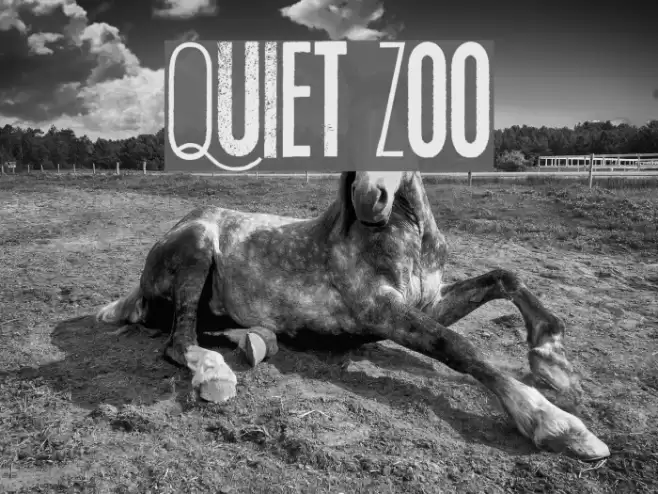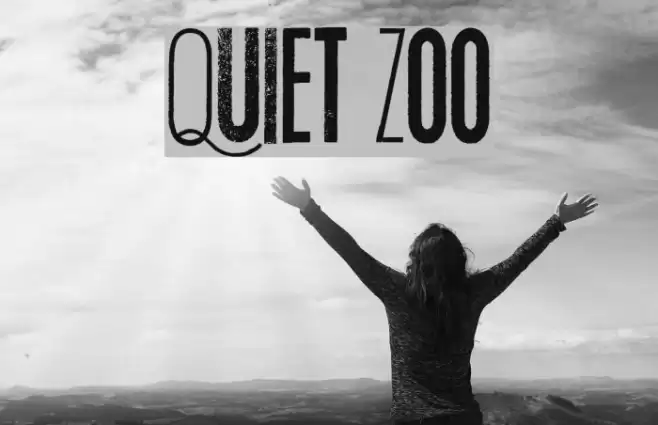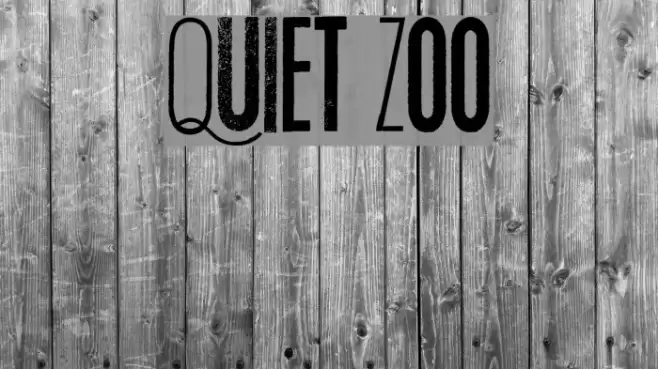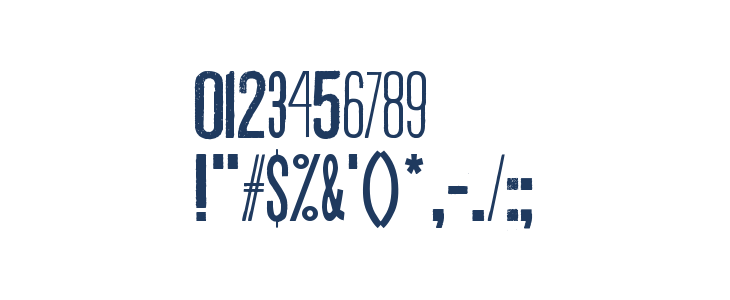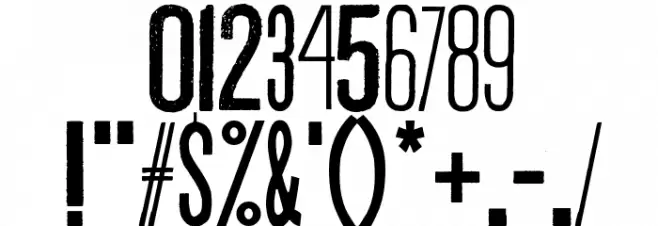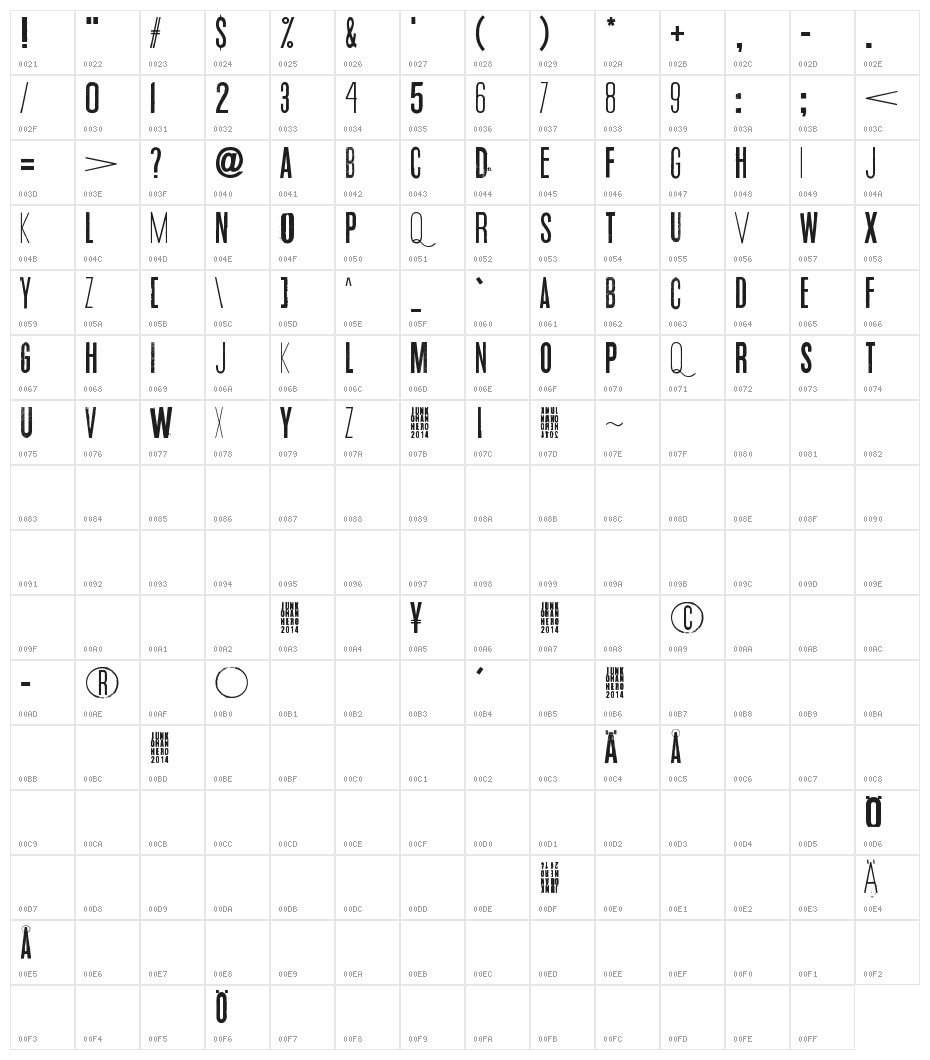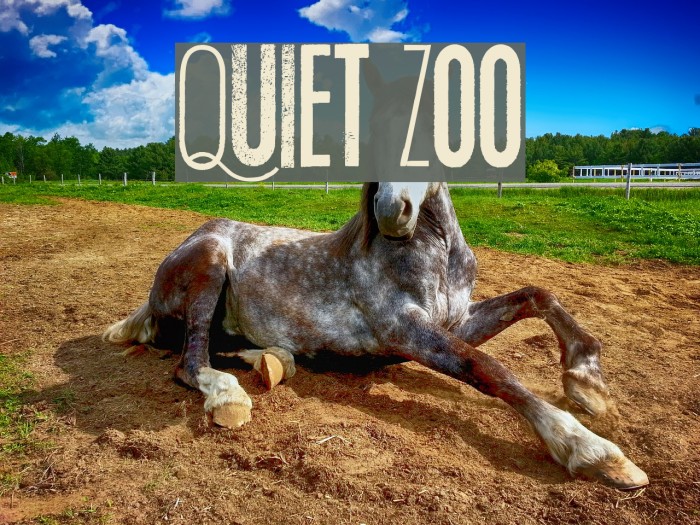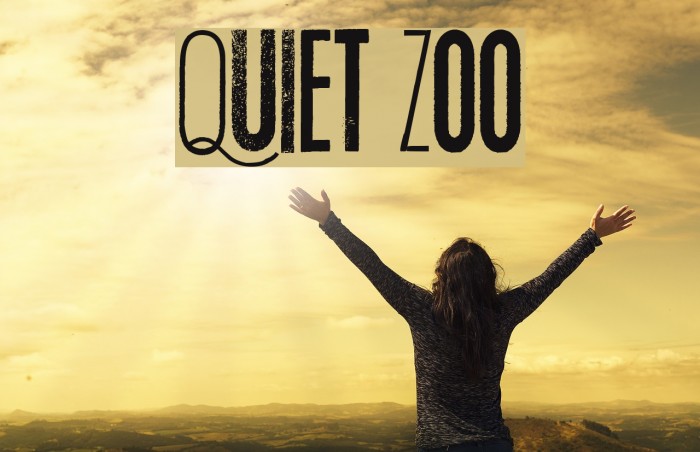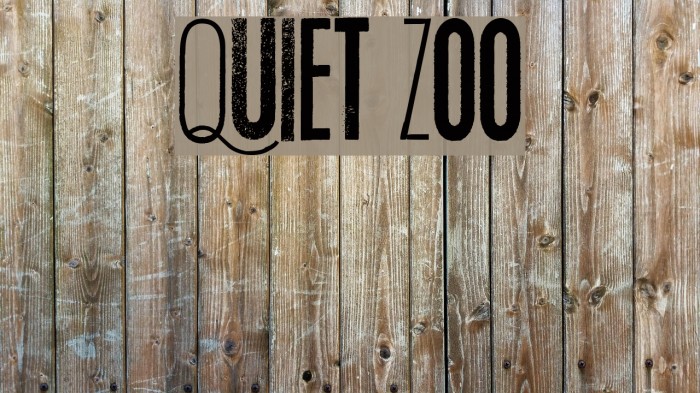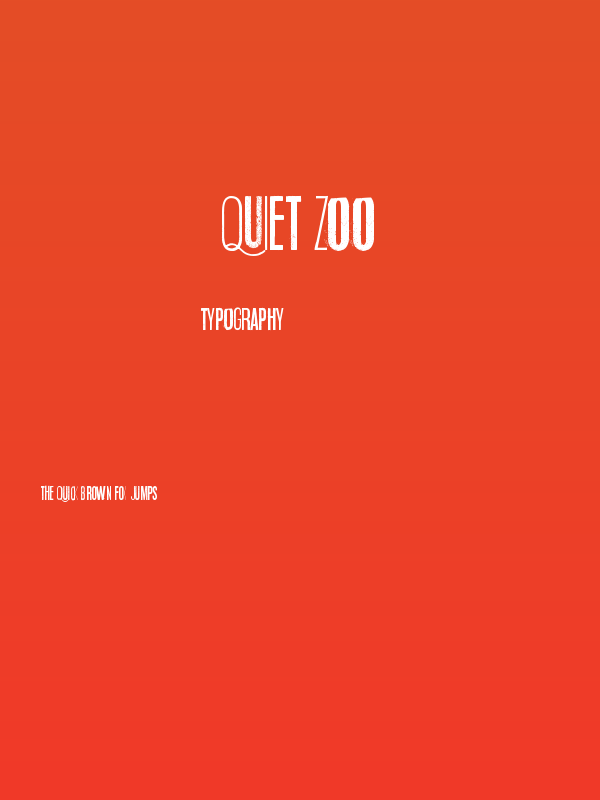
Quiet Zoo Font
Quiet Zoo Description
This font features a distressed, textured appearance, giving it a rugged and vintage feel. The uppercase letters are bold and tall, with varying levels of distress that add character and uniqueness to each letter. The lowercase letters maintain the same distressed style, providing a cohesive look across the alphabet. The numerals are similarly styled, ensuring consistency throughout. Special characters are included, each with its own distinct weathered look. This font is ideal for projects that require a bold, eye-catching typeface with a touch of nostalgia and grit.
A distressed, vintage-style font with bold, textured characters from Distorted Eroded fonts.
- Proposed Projects: Ideal for posters, album covers, branding, and any design needing a bold, vintage aesthetic.
- Overall Style: Vintage